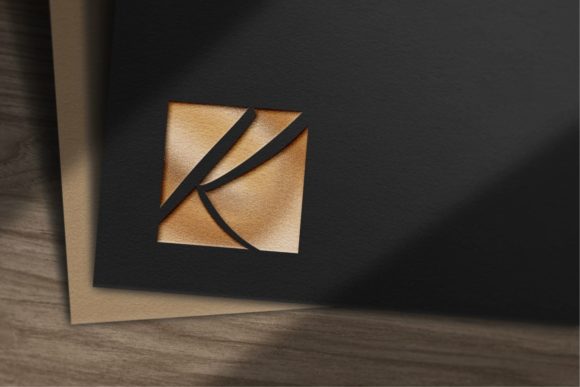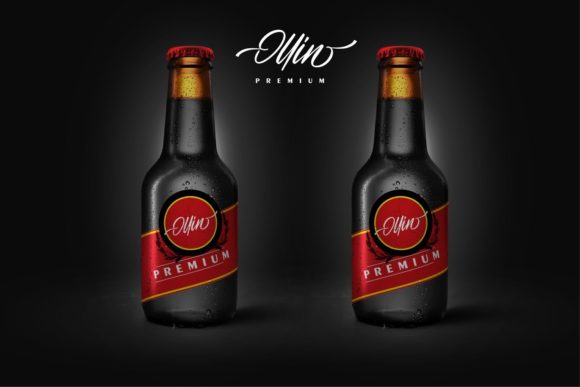
Ollimtian Font
db-ku.com - Script & Handwritten -- Ollimtian is an enchanting handwritten font. This versatile script font has a wide spectrum of applications ranging from greeting cards to headlines and is guaranteed to add a romantic feel to your next project.